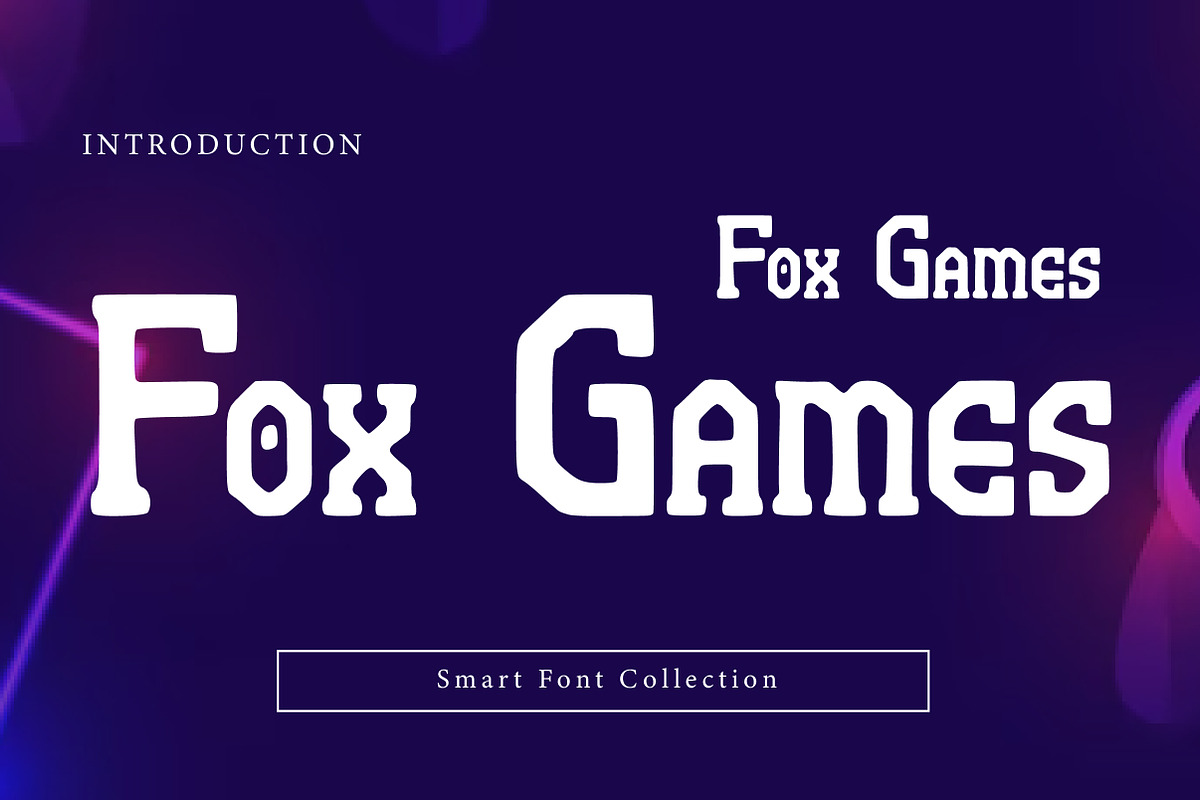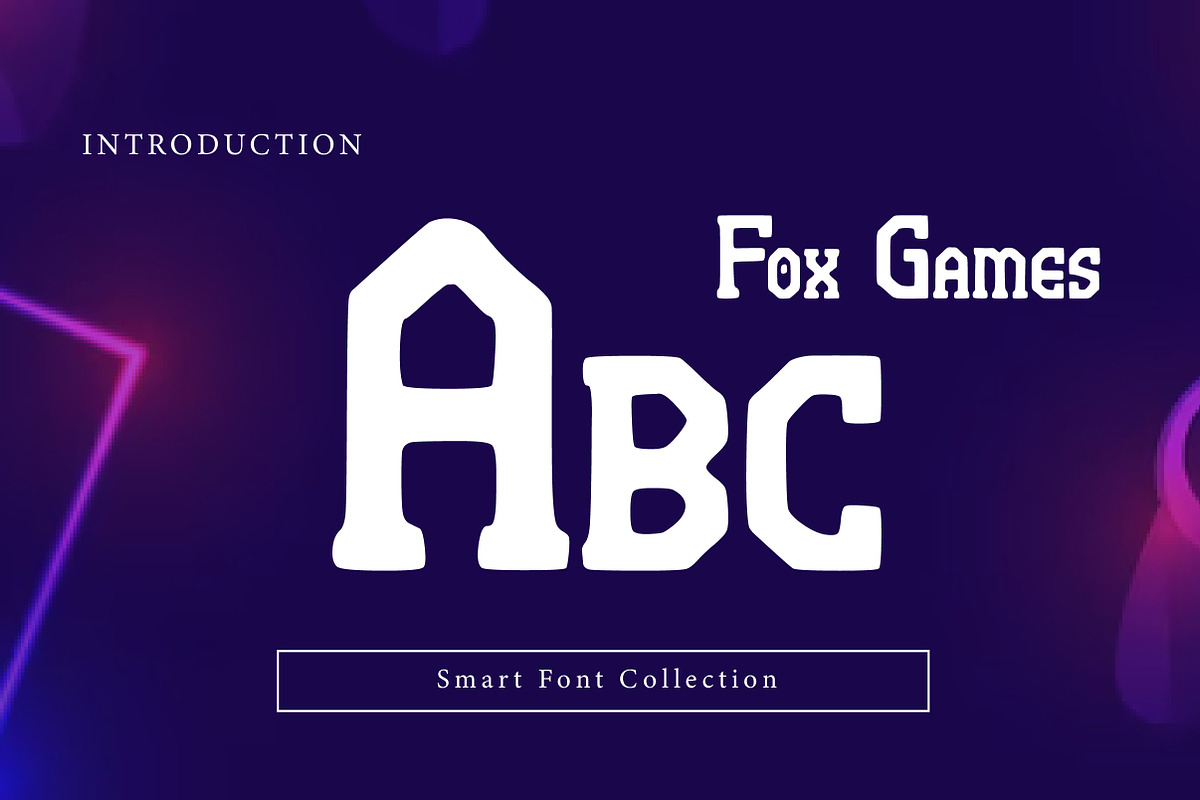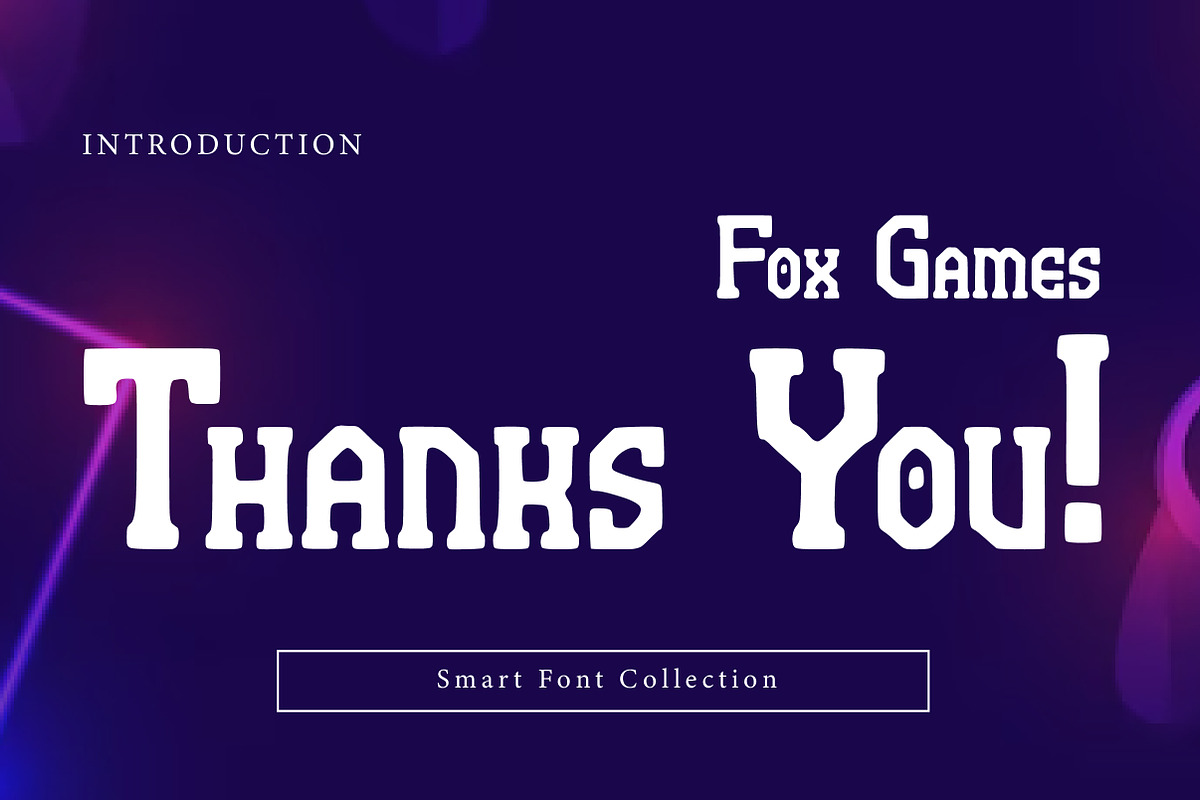
Fox Games
Fox Games is a bold, playful display font with a retro arcade and cartoon vibe. Its chunky letterforms, softened corners, and energetic character make it perfect for game logos, esports branding, streamer graphics, posters, stickers, kids projects, and fun packaging. Fox Games delivers strong readability with a quirky, adventurous personality—ideal for designs that need a friendly “game-ready” look with a nostalgic twist.